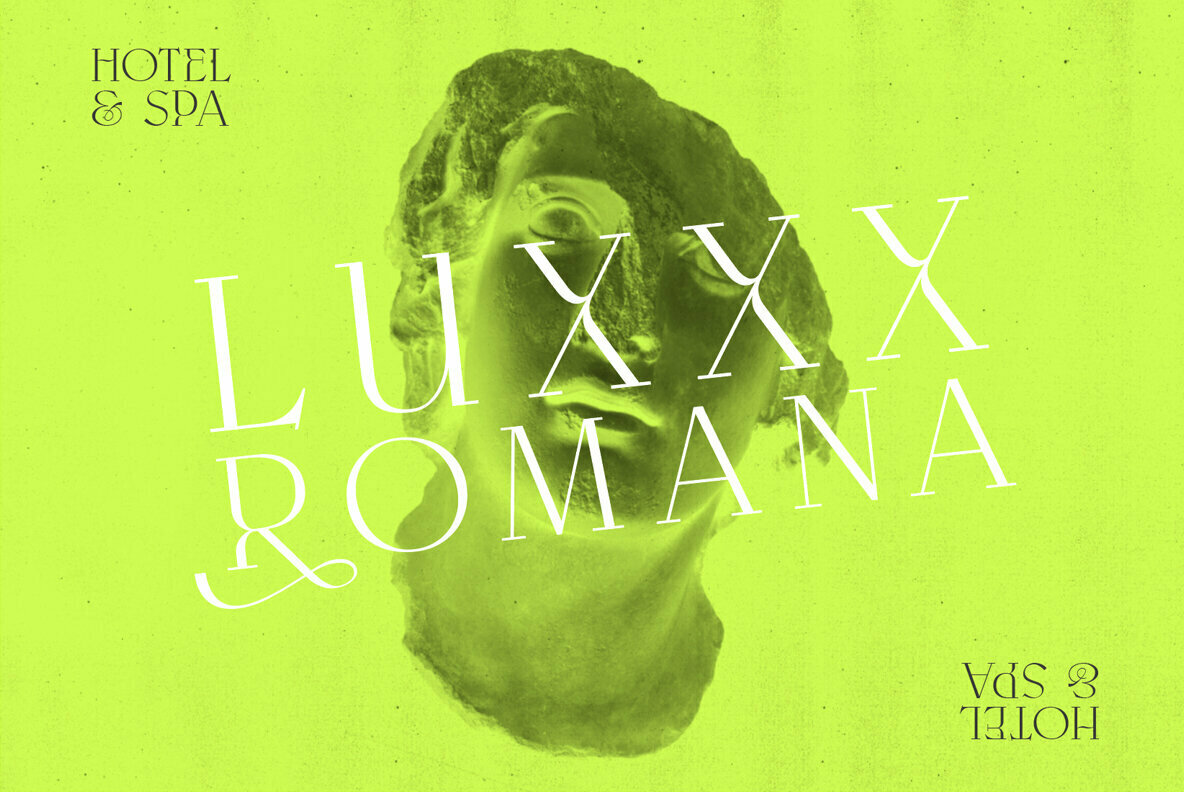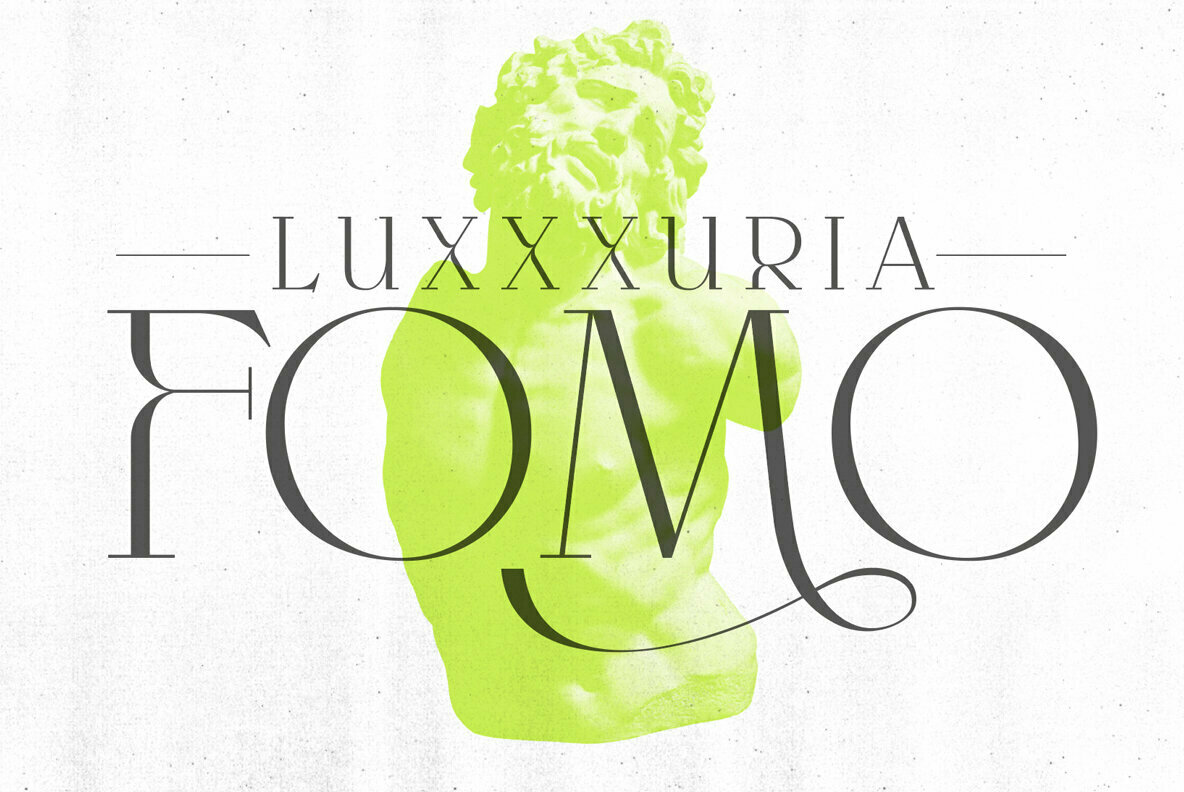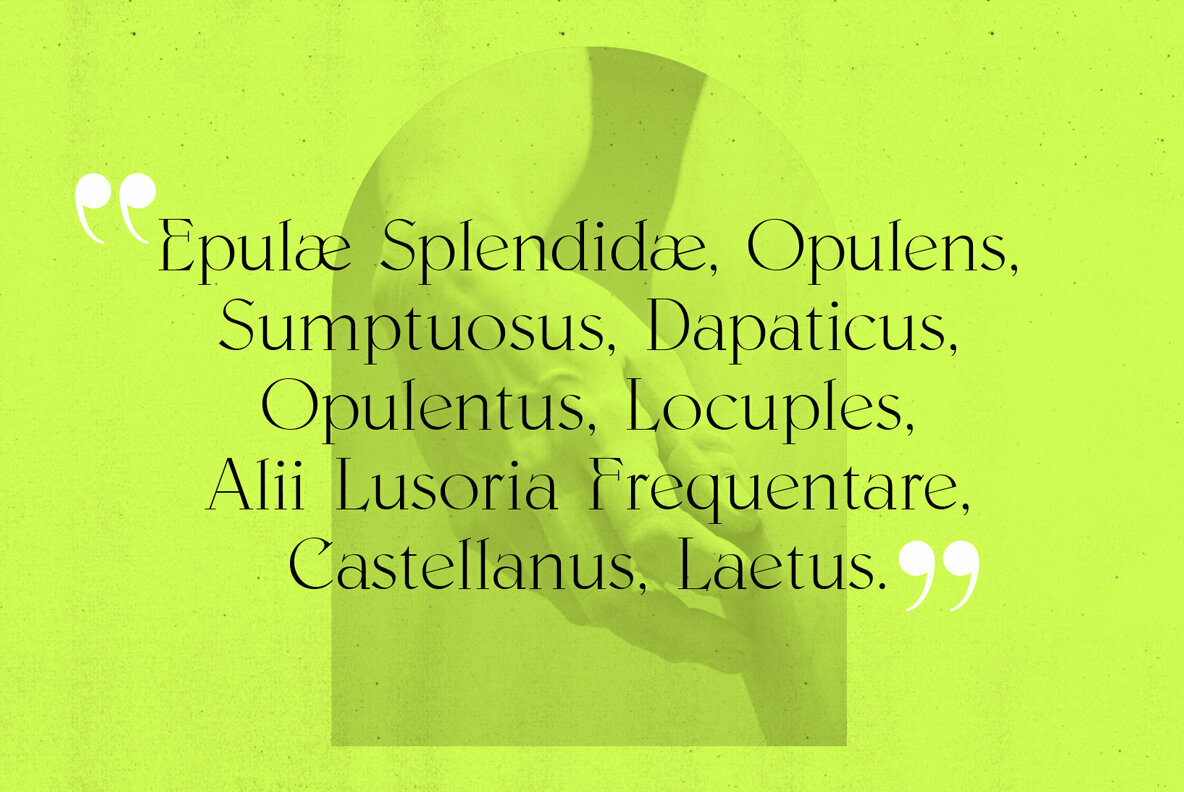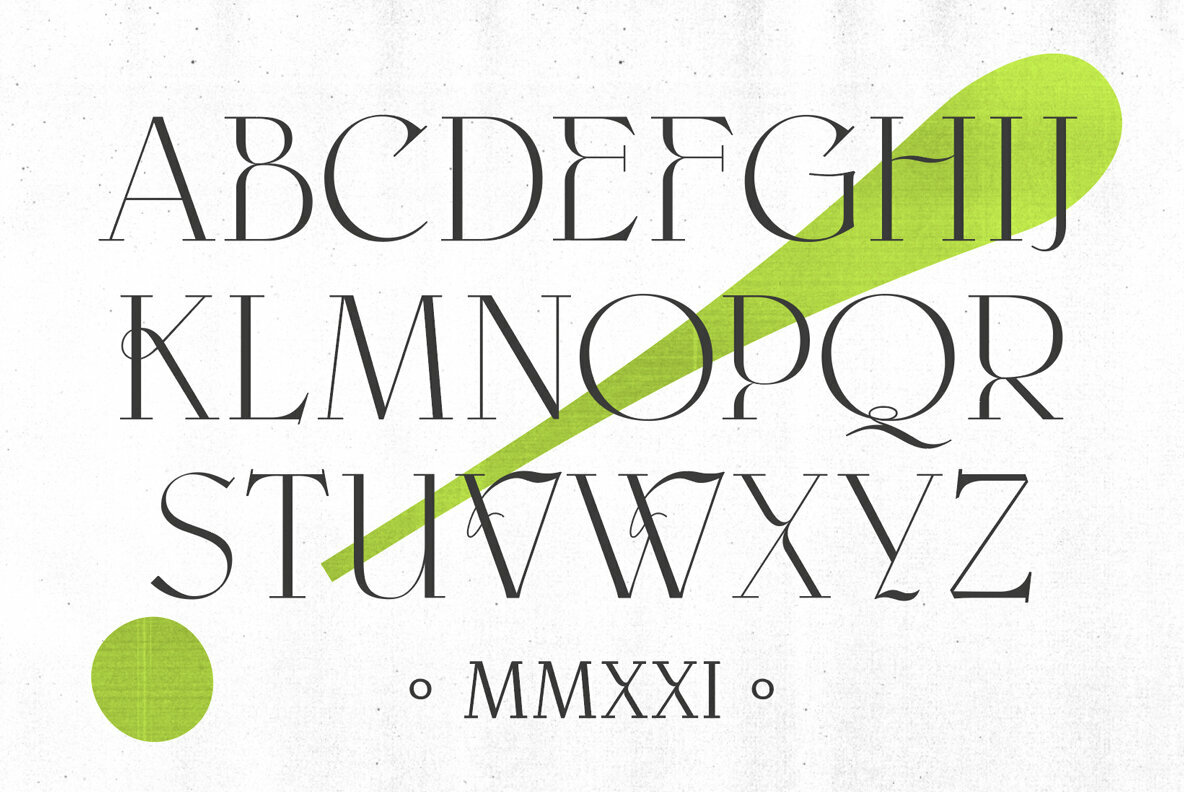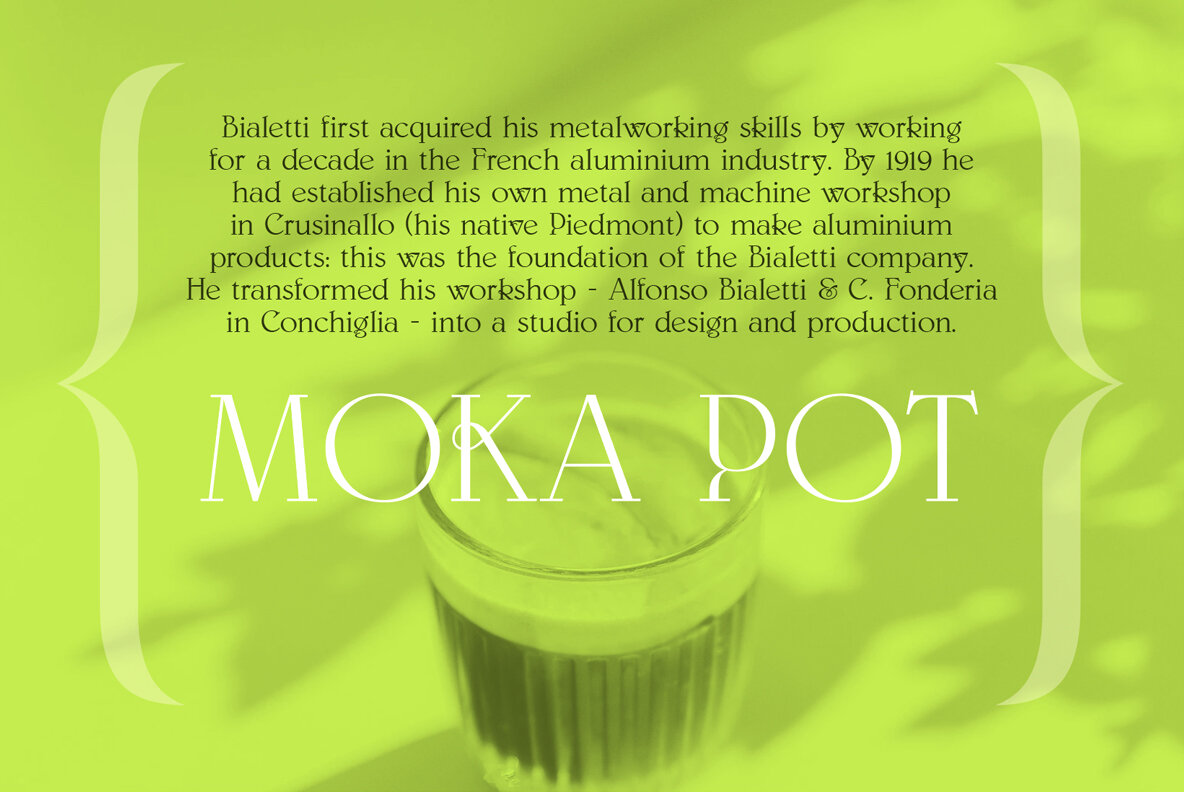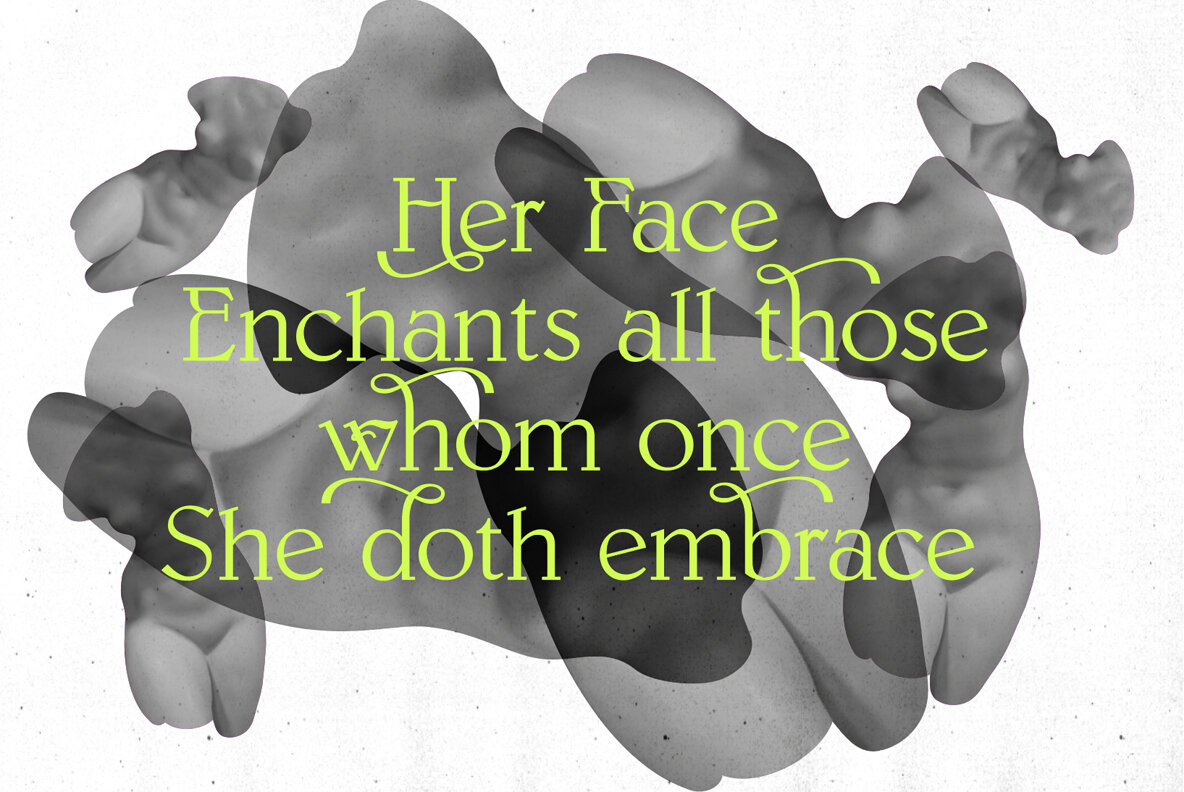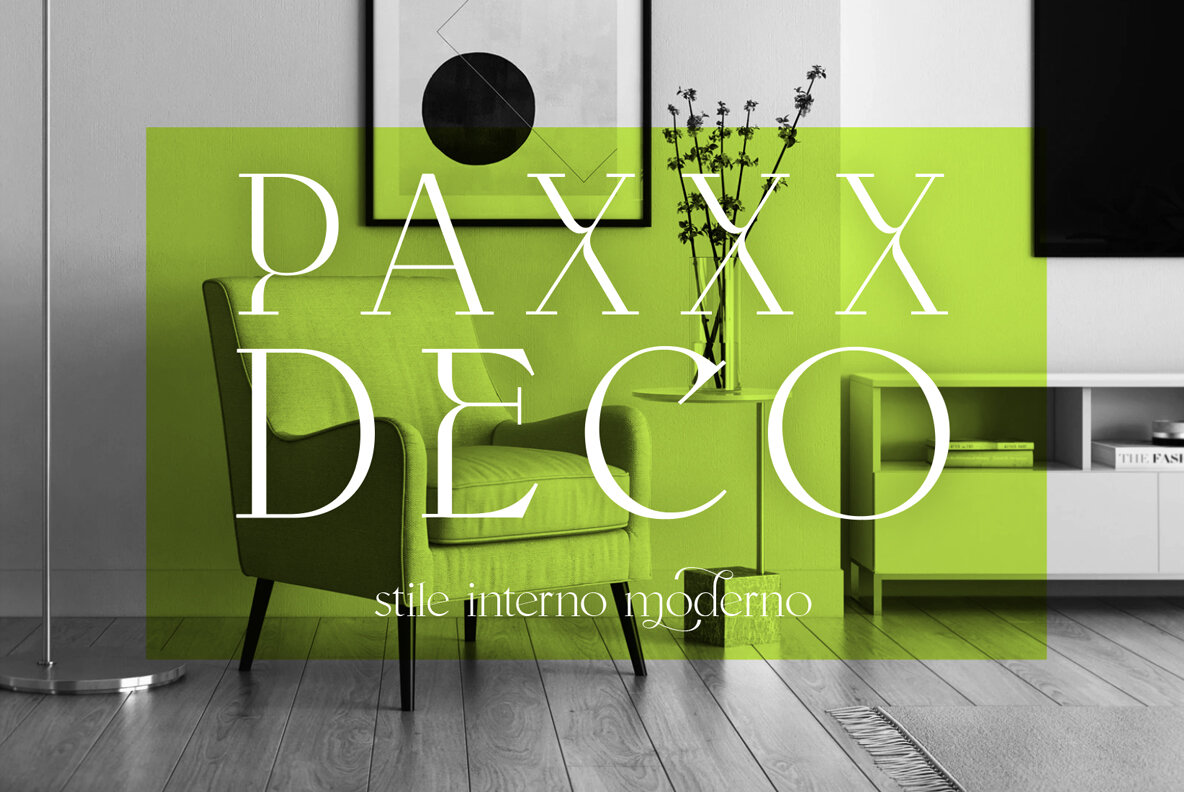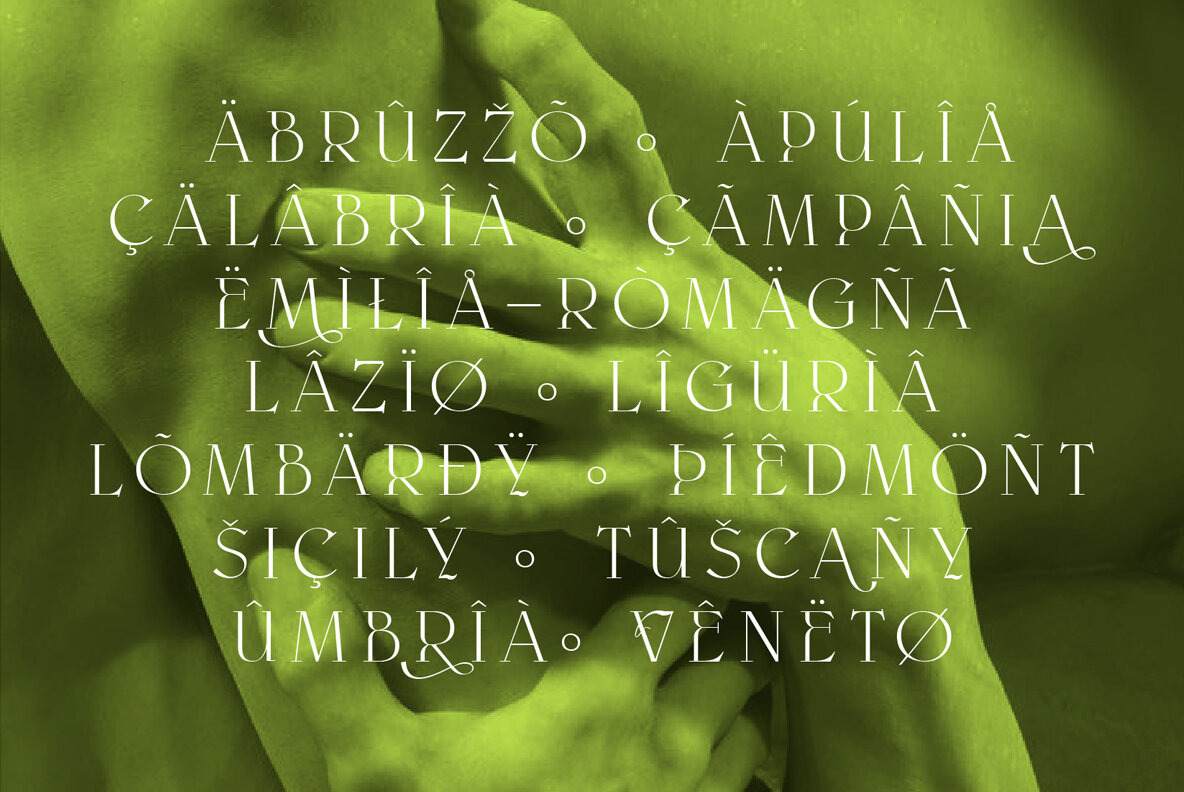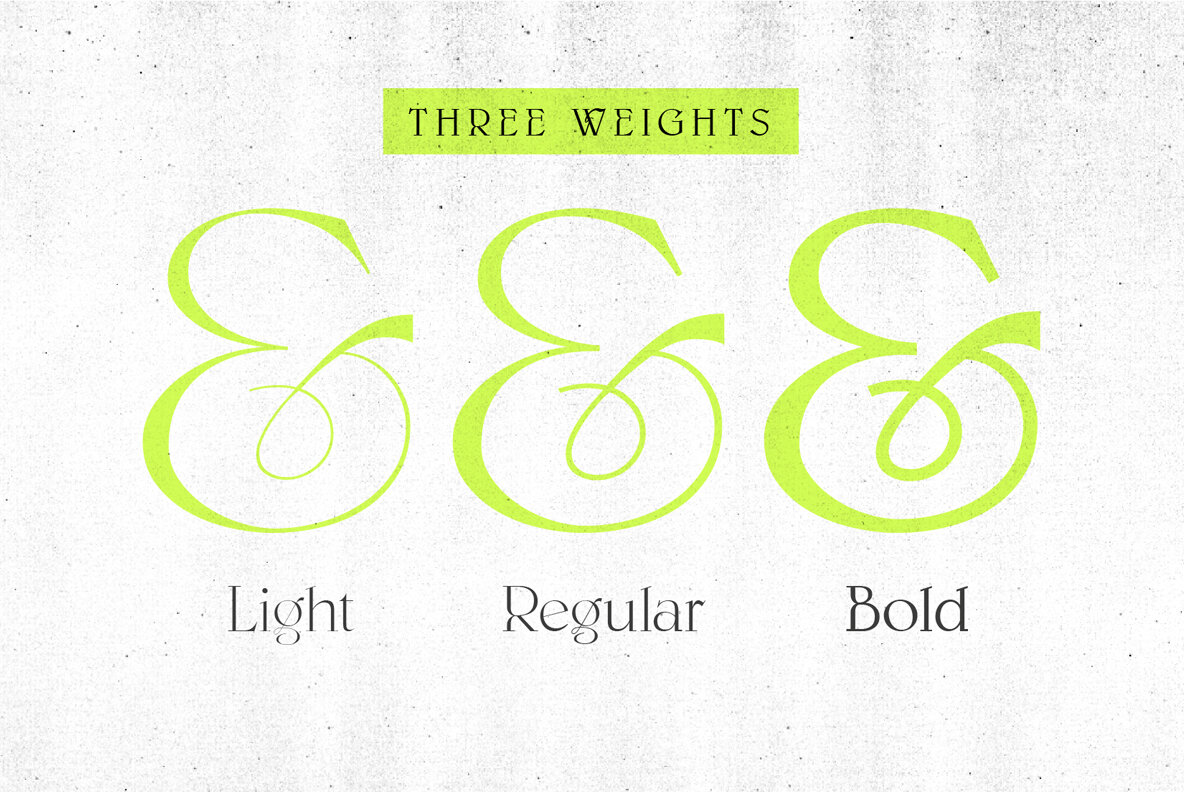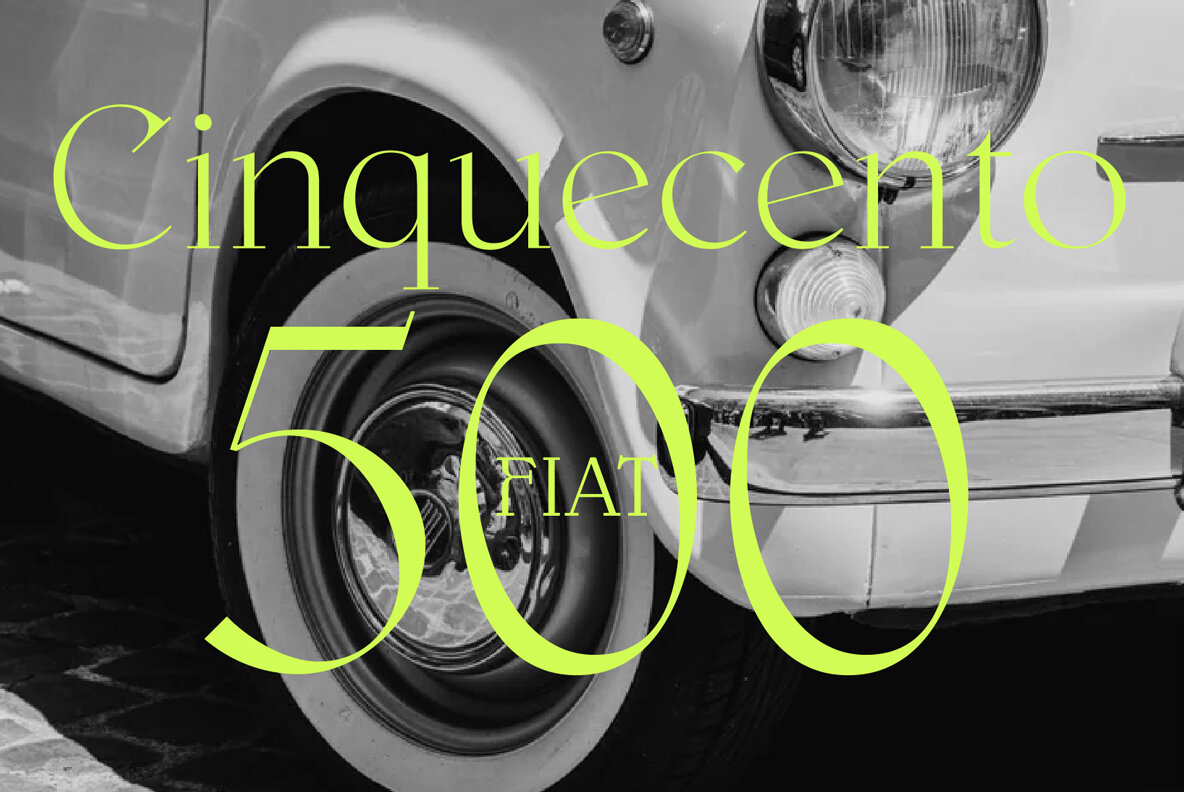
Paxxx is an ultra luxury serif font with classical lines and curvaceous flourishes. Slim and stylish it's perfect for upmarket restaurant branding, sleek upscale food packs and fashionista social campaigns. There's three weights to choose from, all have extra swashes, flourishes and extra accent glyphs.